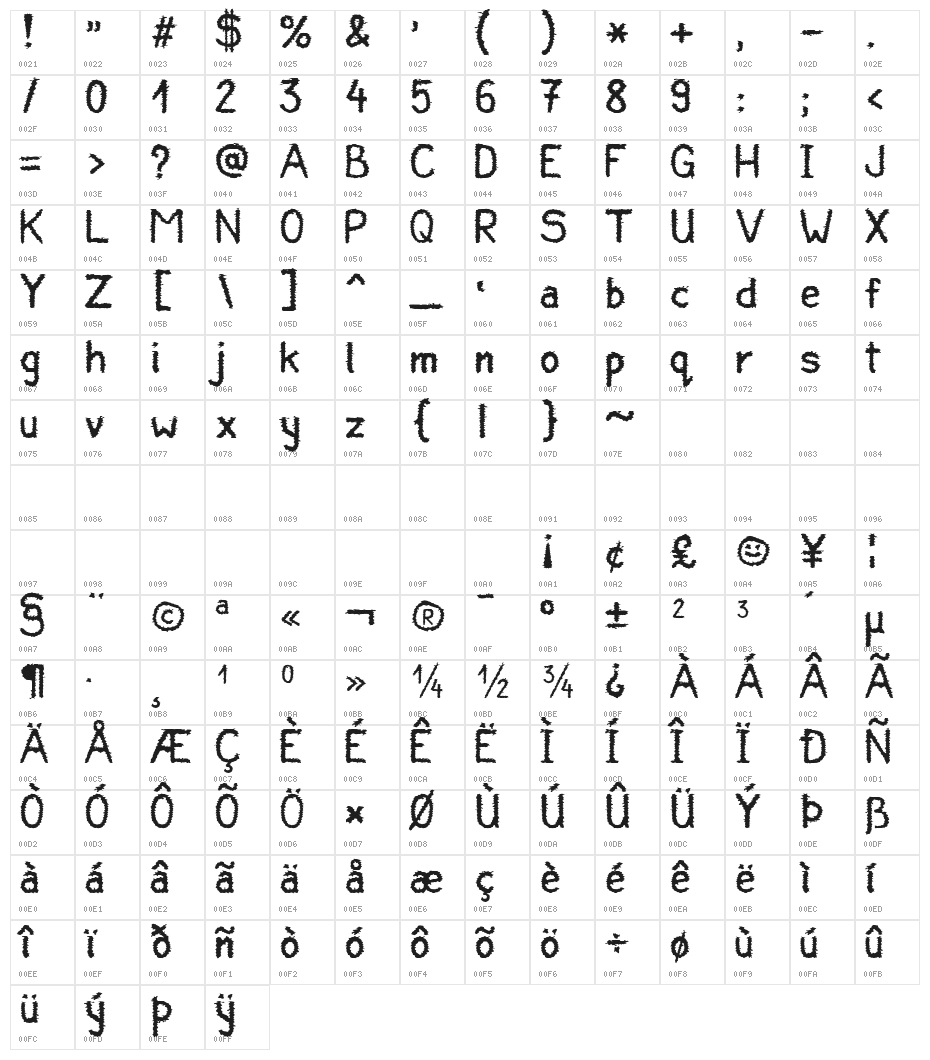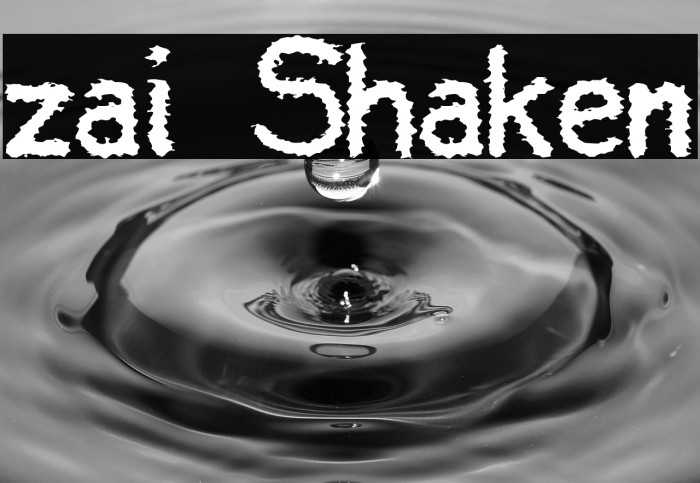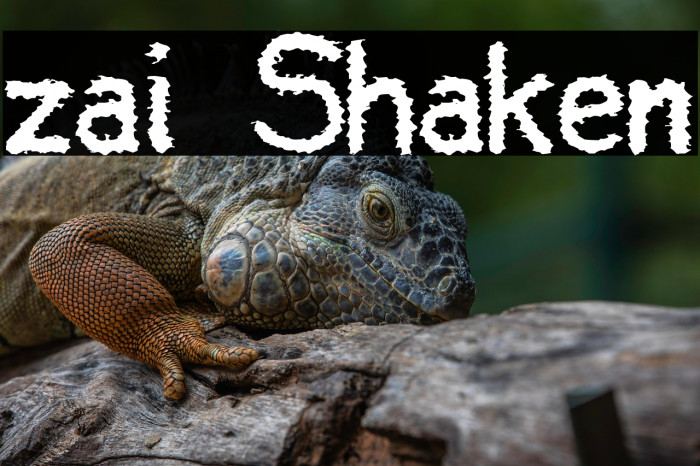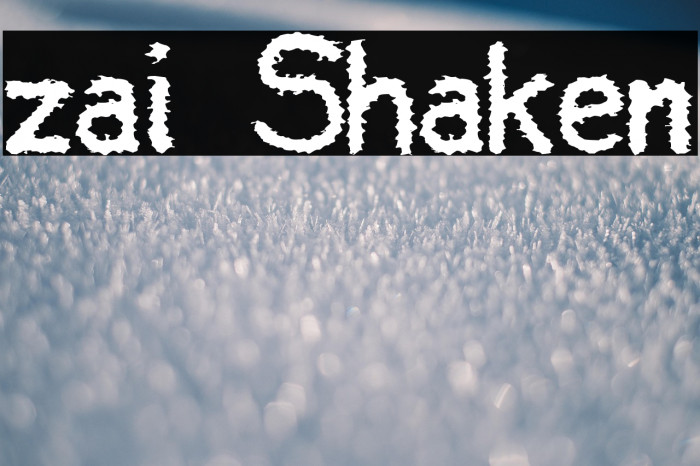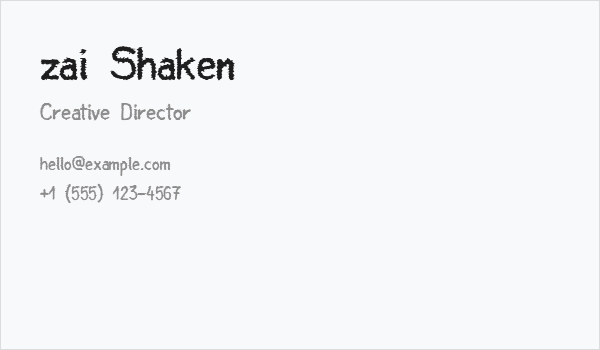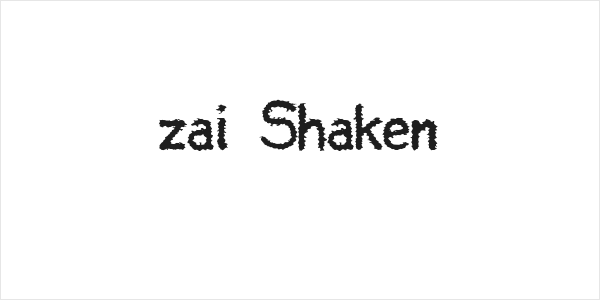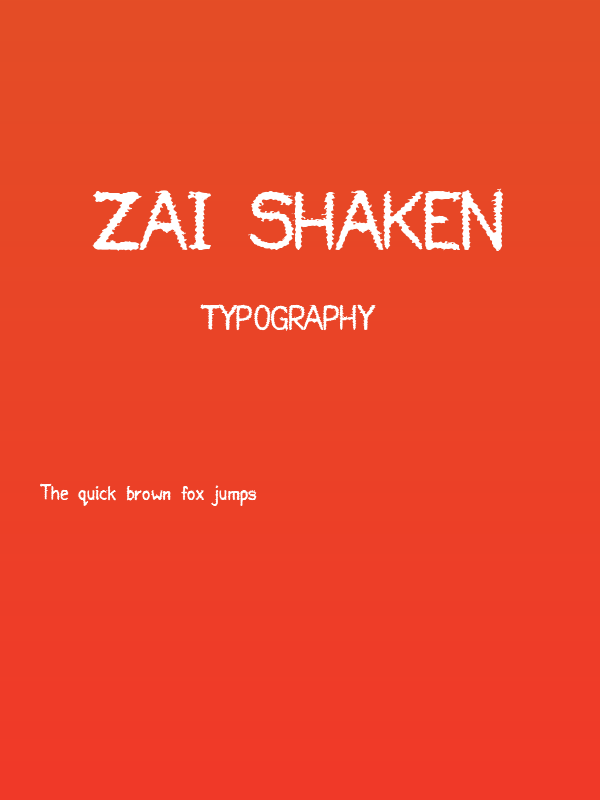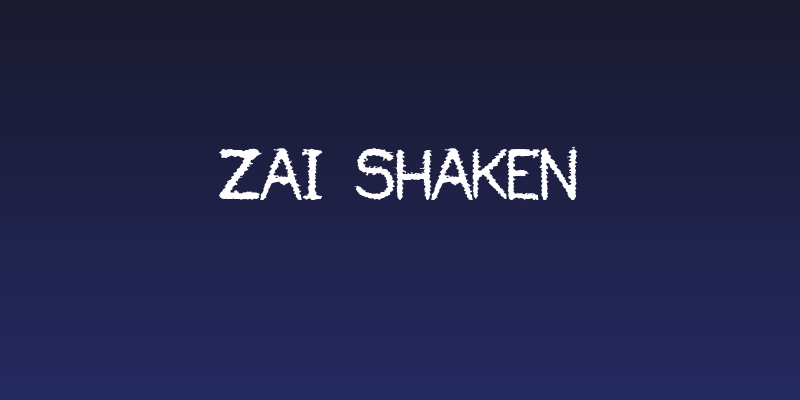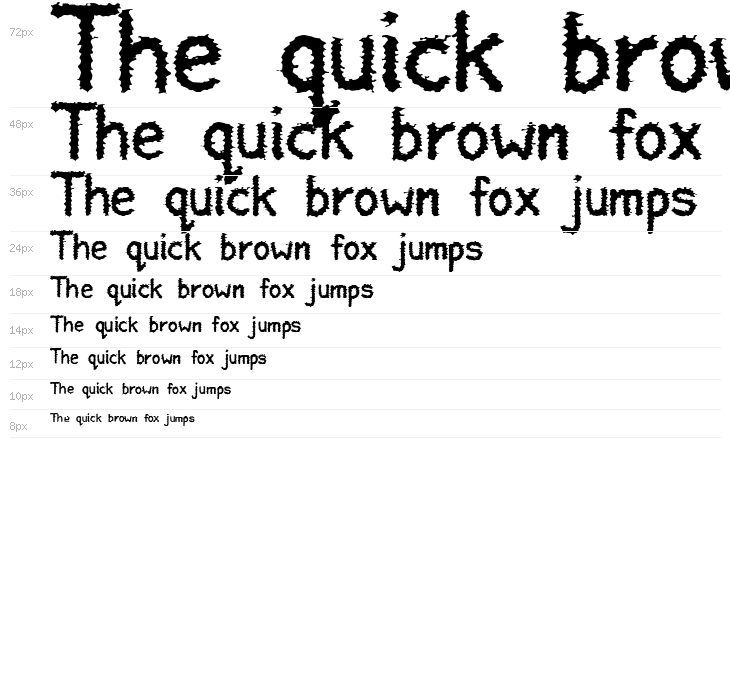
zai Shaken Font
zai Shaken Description
This font features a distinctive, jagged appearance that gives it a dynamic and energetic feel. The edges of each character are irregular and rough, creating a sense of movement and spontaneity. The uppercase and lowercase letters maintain a consistent style, with the uppercase being slightly taller and more pronounced. Numbers and special characters follow the same design, ensuring uniformity across all glyphs. This font's unique texture makes it stand out, offering a bold statement in any design it is used in.